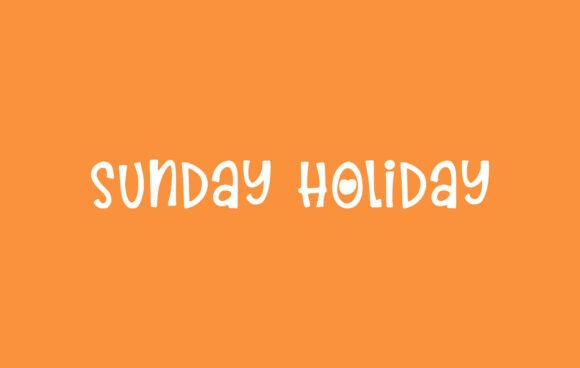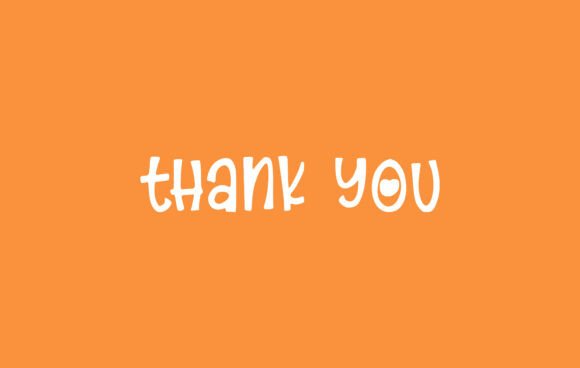
Introducing Chuckle Crafts Font: The Perfect Handwritten Font for Your Creative Projects
Are you tired of using the same old fonts for your designs? Do you want to add a touch of romance and whimsy to your creative projects? Look no further than Chuckle Crafts Font, an authentic handwritten font that is sure to become your new favorite. With its elegant and legible design, this font is perfect for a wide range of applications, from magazine headlines and social media graphics to branding, wedding invitations, and more.
The Charm of Chuckle Crafts Font
Chuckle Crafts Font is a beautifully designed handwritten font that exudes a romantic touch. Its unique and authentic design makes it stand out from other fonts, and its legibility ensures that it looks great as both title and body text. Whether you’re a designer, crafter, or DIY enthusiast, this font is sure to inspire your creativity and take your projects to the next level.
What Makes Chuckle Crafts Font So Special?
So, what sets Chuckle Crafts Font apart from other fonts? Here are just a few of its standout features:
- Authentic Handwritten Design: Chuckle Crafts Font is a genuine handwritten font, carefully crafted to capture the nuances and imperfections of handwriting.
- Romantic Touch: This font has a distinctly romantic feel, making it perfect for wedding invitations, love letters, and other projects that require a touch of elegance.
- Legible and Versatile: Chuckle Crafts Font is highly legible, making it suitable for use as both title and body text. Its versatility ensures that it can be used for a wide range of applications, from headlines and social media graphics to branding and more.
Endless Design Possibilities with Chuckle Crafts Font
With Chuckle Crafts Font, the design possibilities are endless. Here are just a few ideas to get you started:
- Magazine Headlines: Use Chuckle Crafts Font to create eye-catching headlines for your magazine or blog.
- Social Media Graphics: Add a touch of personality to your social media graphics with this charming font.
- Branding: Use Chuckle Crafts Font to create a unique and memorable brand identity for your business.
- Wedding Invitations: Make your wedding invitations truly special with this beautiful handwritten font.
- Cards and Stationery: Use Chuckle Crafts Font to create one-of-a-kind cards and stationery for any occasion.
Tips for Using Chuckle Crafts Font
To get the most out of Chuckle Crafts Font, here are a few tips to keep in mind:
- Experiment with Font Sizes: Chuckle Crafts Font looks great in a variety of font sizes, so don’t be afraid to experiment to find the perfect size for your project.
- Pair with Other Fonts: Try pairing Chuckle Crafts Font with other fonts to create a unique and visually appealing combination.
- Use for Body Text: While Chuckle Crafts Font is often used for headlines, it’s also highly legible and can be used for body text.
In conclusion, Chuckle Crafts Font is a truly special font that is sure to become a favorite among designers, crafters, and DIY enthusiasts. With its authentic handwritten design, romantic touch, and legibility, this font is perfect for a wide range of creative projects. Whether you’re looking to add a touch of elegance to your wedding invitations or create a unique brand identity, Chuckle Crafts Font is the perfect choice. So why wait? Download Chuckle Crafts Font today and take your creative projects to the next level!